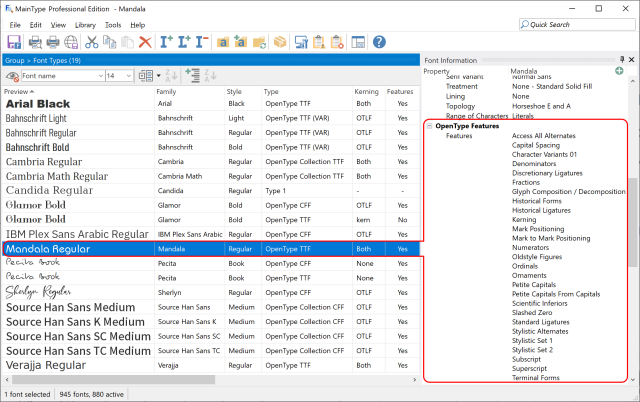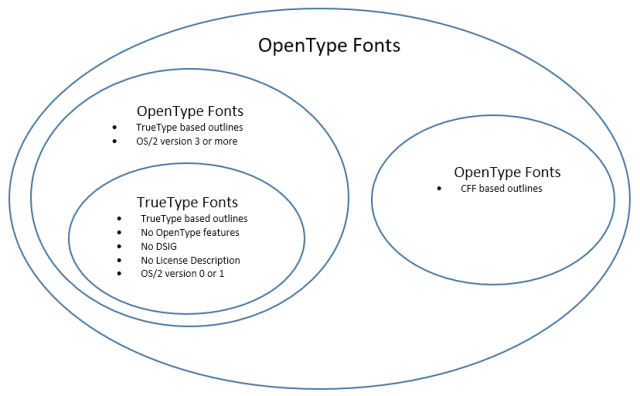
What's the Difference Between TrueType and OpenType Fonts?
More than half the world's population uses fonts daily. Most people don't care about the internals, but some want to know whether there is a difference between TrueType and OpenType, or whether they can decide what font is best based on the file extension.
This article clears up the myths and misinformation about font formats that circulate online. The most common ones:
• Myth: .ttf means TrueType and .otf means OpenType.
• Myth: OTF is always more professional than TTF.
• Myth: a TTF can't contain OpenType Layout features.
• Myth: the file extension tells you the outline format.
By the end you'll see why each of these is wrong. First, some background on scalable font technology.
PostScript Type 1
Adobe launched PostScript Type 1 in 1984. It became very popular among desktop publishers, but it is now legacy — Adobe ended support for Type 1 in its own applications in 2023.
TrueType
TrueType was invented by Apple in the late 1980s as competition to Adobe's PostScript Type 1. It has been available since 1991 (Apple's Macintosh System 7). Apple licensed TrueType to Microsoft, and it became available on Microsoft Windows 3.1 in 1992.
OpenType
In 1994 Microsoft developed TrueType Open. It was improved jointly by Microsoft and Adobe to become OpenType in 1996. It is an extension of the TrueType font format, retaining its basic structure and adding many data structures that prescribe typographic behavior — ligatures, small caps, old-style figures, and more — which let font creators design better international and high-end typographic fonts. While TrueType only allowed TrueType outlines, OpenType also supports Compact Font Format based outlines (CFF is a variation of Type 1 fonts). OpenType solved many compatibility issues between Macintosh and Windows computers. Multiple Master support in OpenType was discontinued as of version 1.3 of the specification, but since 2016 it supports font variations (see below).
OpenType Font Collection
An OpenType Font Collection (formerly known as TrueType Collection) is a means of delivering multiple OpenType font resources in a single file structure.
OpenType Font Variations (also known as Variable Fonts)
In 2016, support for font variations was added to the OpenType specification. It allows multiple font faces within a font family in a single font resource — thin, regular, bold, and heavy, along with condensed and expanded, can live in one font file — and it allows continuous variation along the included design axes. The outline format can be TrueType or CFF based, but CFF-based variable fonts use a new internal CFF2 table. Because that CFF2 table is not backwards compatible, most font designers make TrueType-based variable fonts. The curve-format side of this decision is covered in TrueType vs PostScript: TTF, OTF & Curve Formats.
Web Fonts
The Web Open Font Format (both WOFF and WOFF2 versions) is a packaging format that encapsulates a TrueType font, OpenType font collection, or variable font. WOFF2 serves the same purpose as WOFF but uses newer, more efficient compression. Both are implemented in all major web browsers, although very old browsers might only support WOFF, or no web fonts at all.
Do TrueType Fonts Still Exist?
You can argue that OpenType fonts are all TrueType fonts with additional data structures. We prefer to see OpenType as a new format: yes, it's based on TrueType, but it is not the same.
If you accept that definition, then all modern computers mainly come with OpenType fonts. There are still numerous old fonts floating around the Internet that internally include only the data structures defined in the original TrueType specification, but it's best to avoid them, as they no longer meet today's design standards.
If you want to keep using the term TrueType for all OpenType fonts, then what's the use? It won't clarify anything. And if you want to call fonts with TrueType-based outlines "TrueType" and the ones with CFF-based outlines "OpenType," that's simply wrong — read the next section to see why.
TrueType versus OpenType, illustrated.
Font File Extensions – TTF versus OTF
Type 1 is now legacy, and old "pure TrueType" fonts are not what modern font editors normally export. When FontCreator exports a .ttf with TrueType-based outlines, it is still exporting an OpenType font — just one with quadratic TrueType outlines. For modern desktop and web distribution, new fonts are almost always OpenType-based. So why do people still talk about "ttf" versus "otf"?
Probably because they think the file extension reveals the internal outline format. It doesn't, so let's explain.
Concerning glyph outline formats, OpenType fonts come in these flavours:
1. OpenType with TrueType-based outlines (quadratic Bézier curves)
2. OpenType with CFF-based outlines (cubic Bézier curves, like PostScript Type 1)
3. OpenType with both TrueType and CFF-based outlines (rare and not recommended)
4. OpenType with embedded bitmap-only glyph data, or color data without a normal outline fallback — specialized, and not recommended for general-purpose fonts
Some 25 years ago, Microsoft decided — mainly for compatibility — to keep the original TrueType file extension "ttf," but only for OpenType fonts with TrueType-based outlines. A new extension, "otf," was introduced and is allowed for both font flavours.
So a font's file extension is only a hint, not proof of the internal format. To be sure which outline format and which OpenType layout features a font carries, inspect the font internals — a font manager like MainType makes this easy. When you can choose between a font with TrueType-based outlines and one with CFF-based outlines, take the one with the best language support and sufficient OpenType layout features. And if your users rely on Microsoft Word and its PDF export, test font embedding carefully — TrueType-outline fonts are often the safer compatibility choice in Word-based workflows.